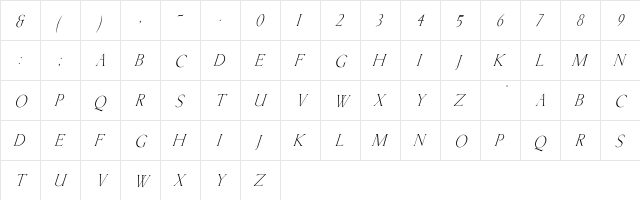
Kellnear-Italic Regular
Design Context for Kellnear-Italic Typeface
Kellnear-Italic is a composed and adaptable typeface that performs quietly and consistently across a wide range of design contexts. The dynamic lean of this cut emphasises speed and emphasis in any layout.